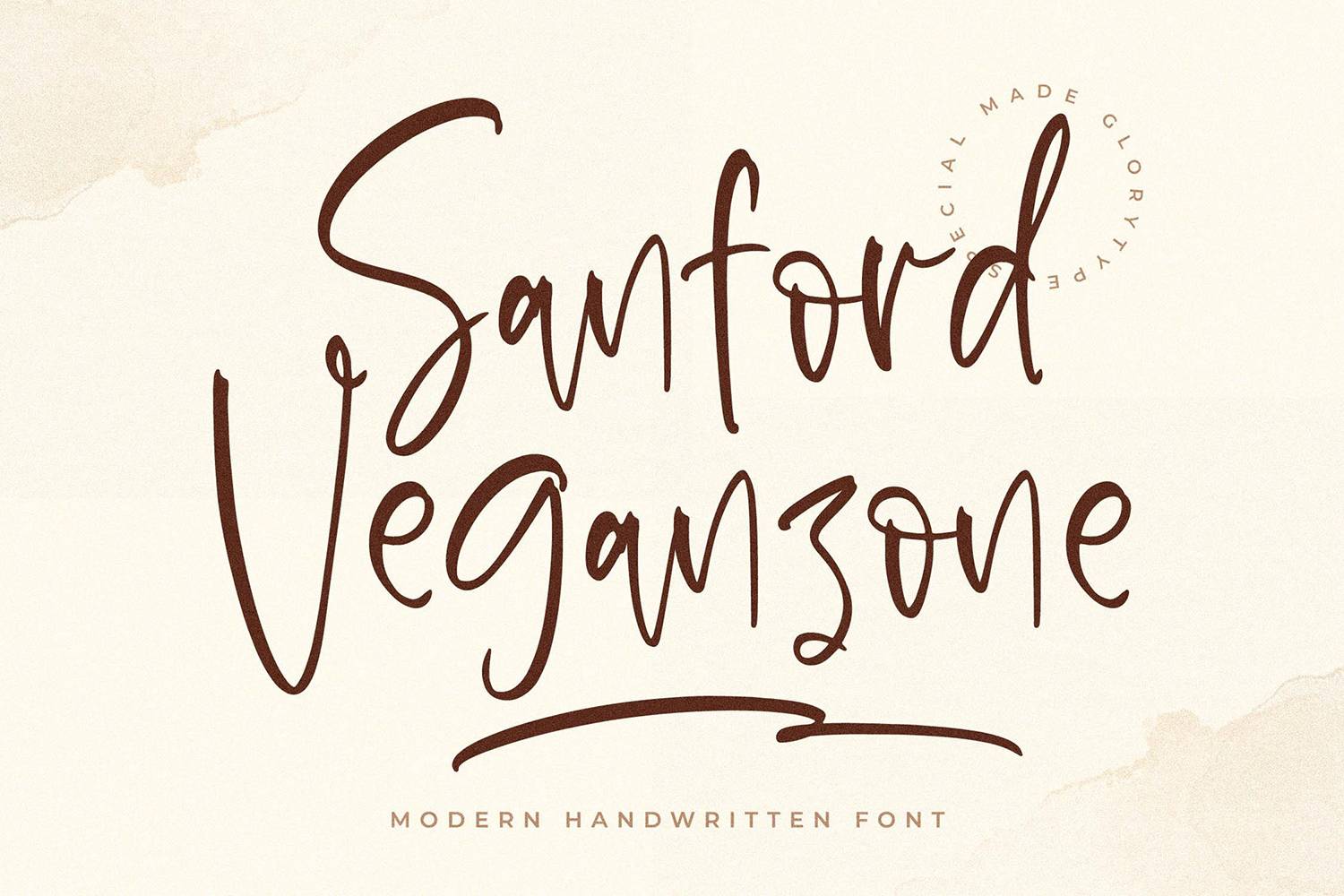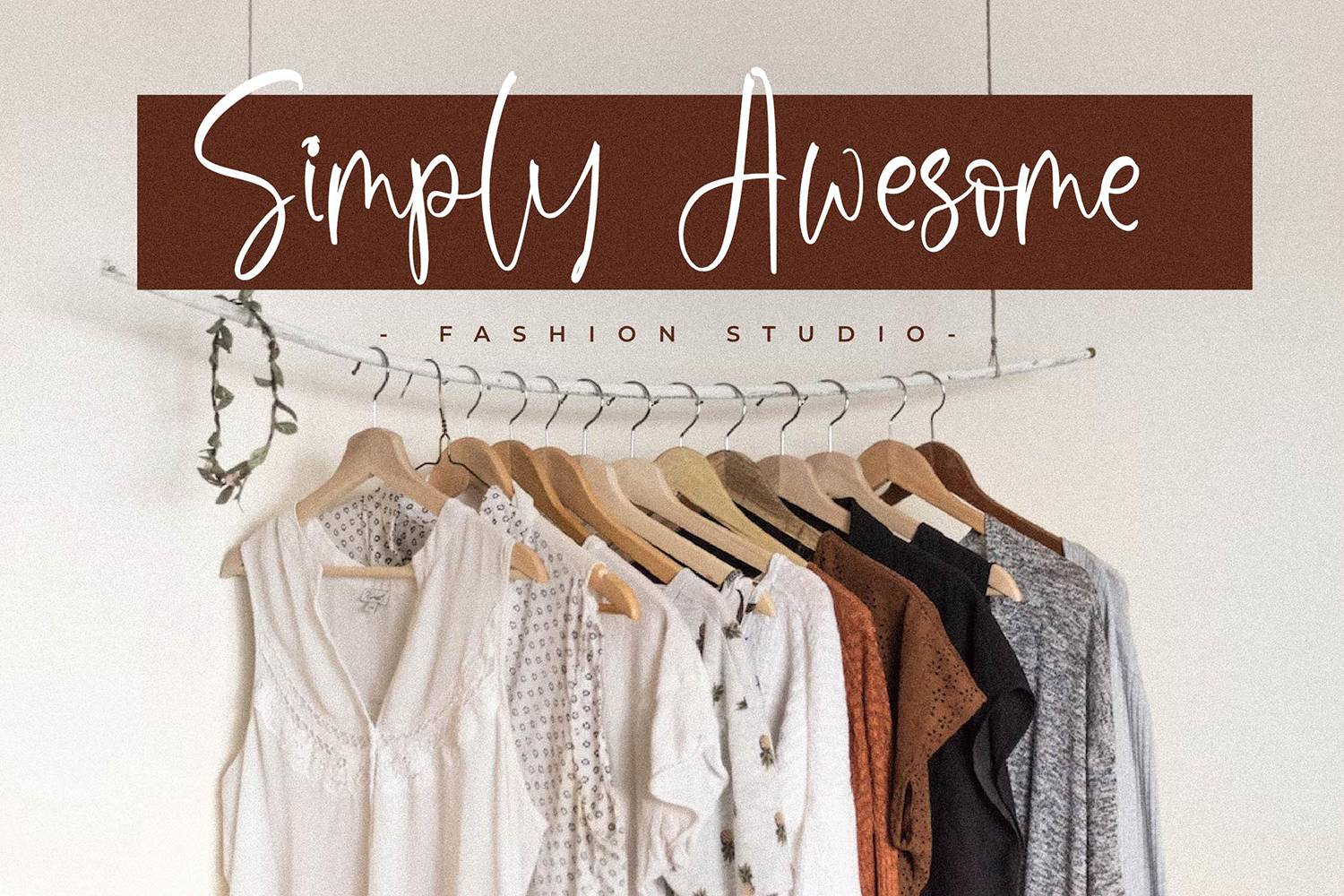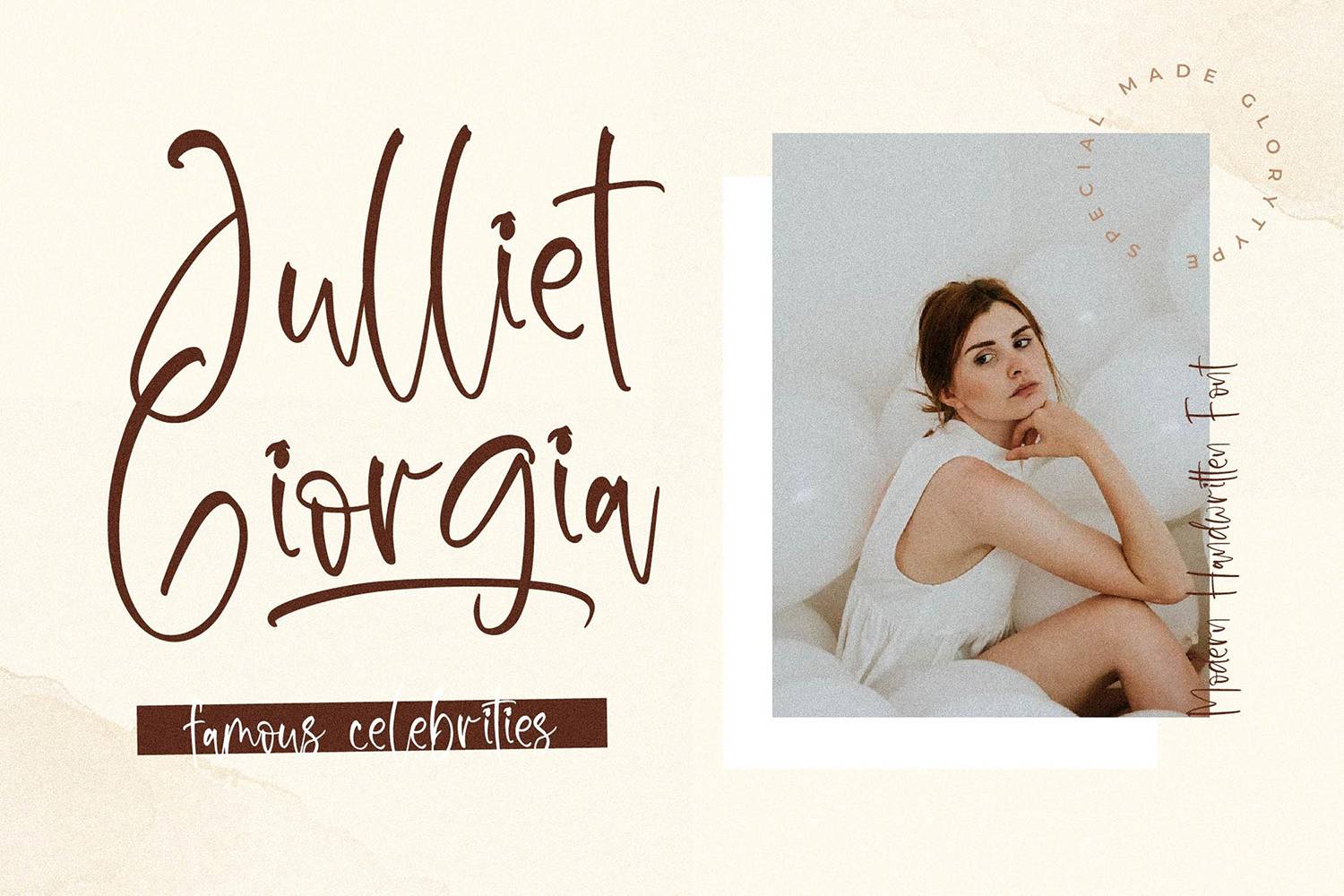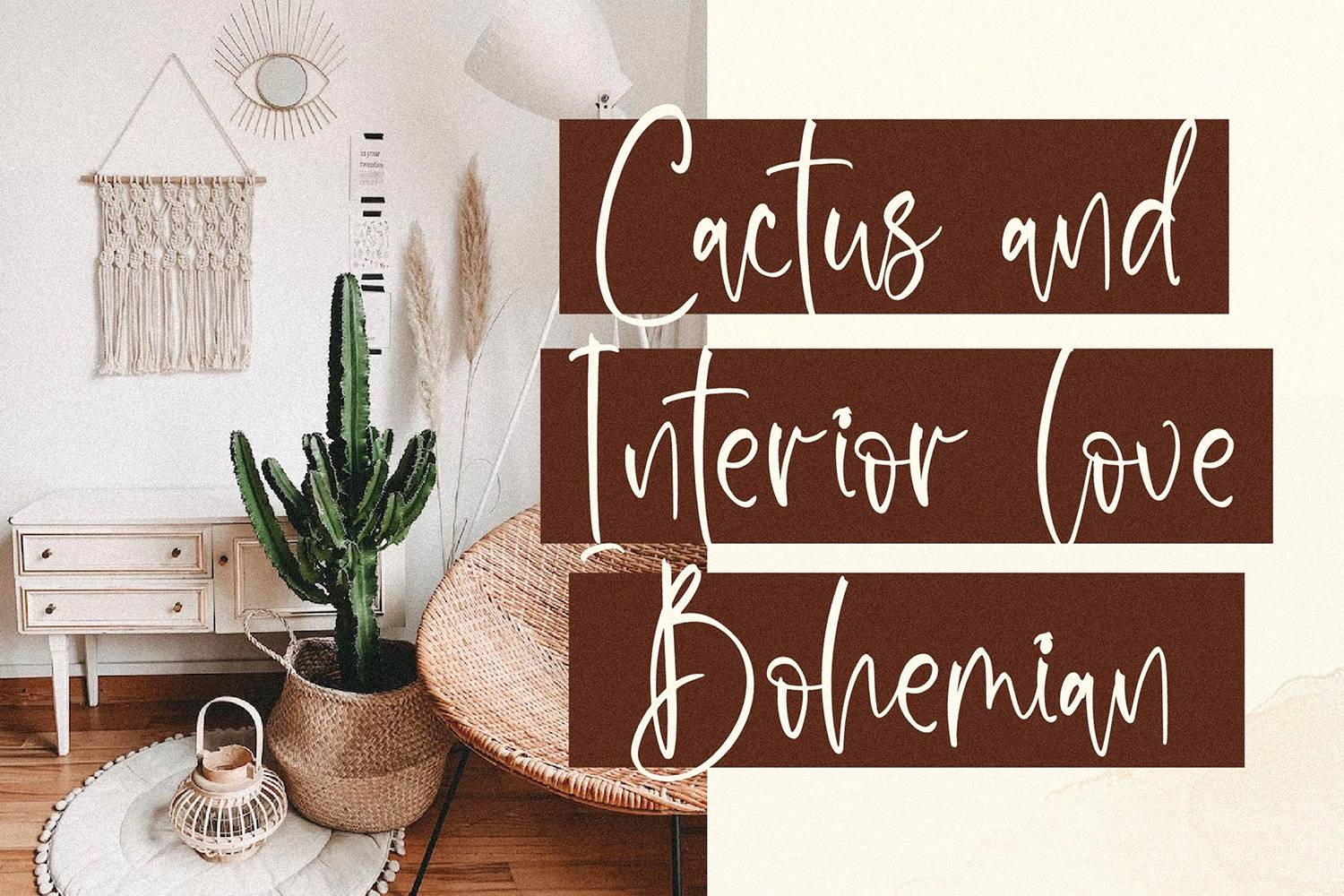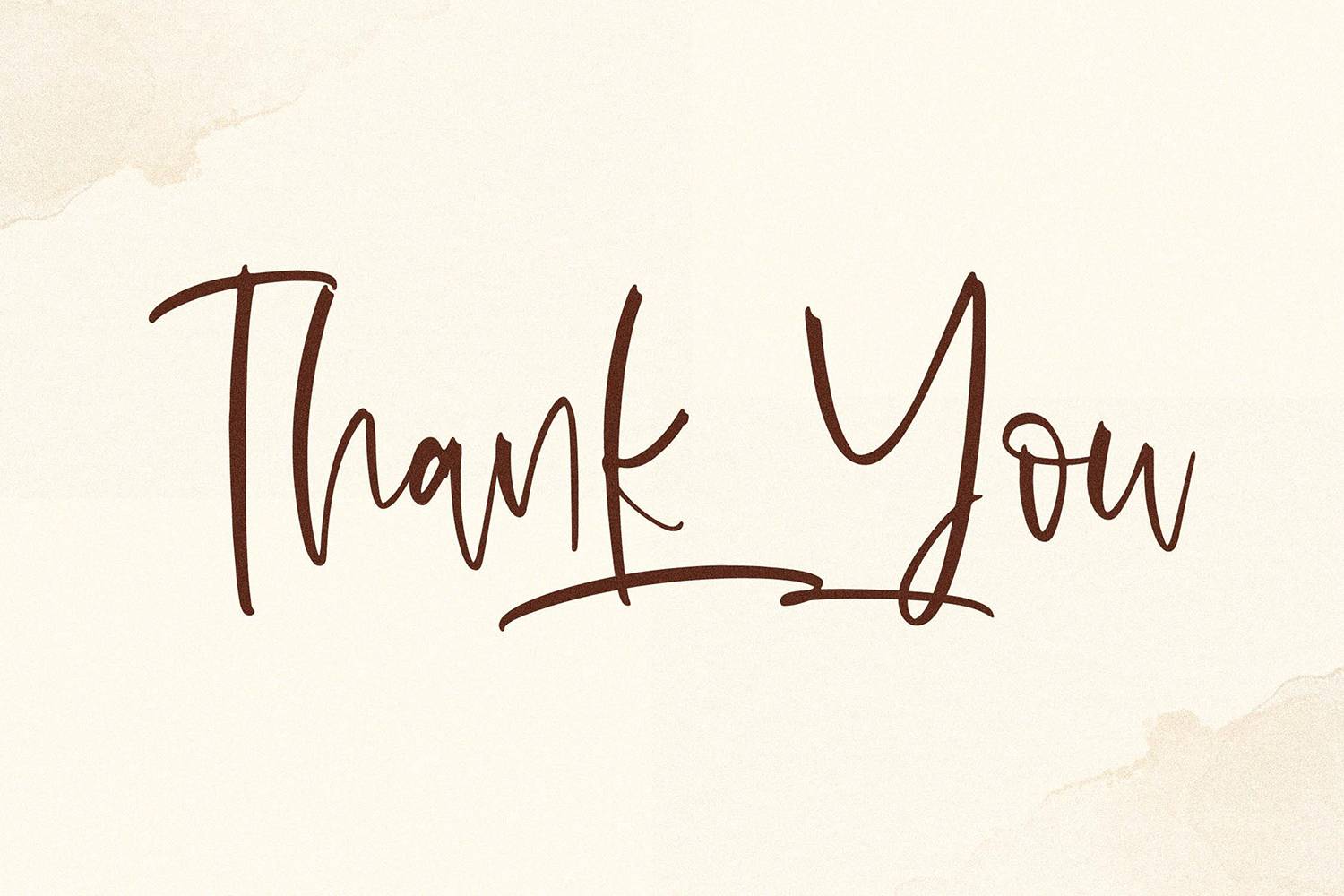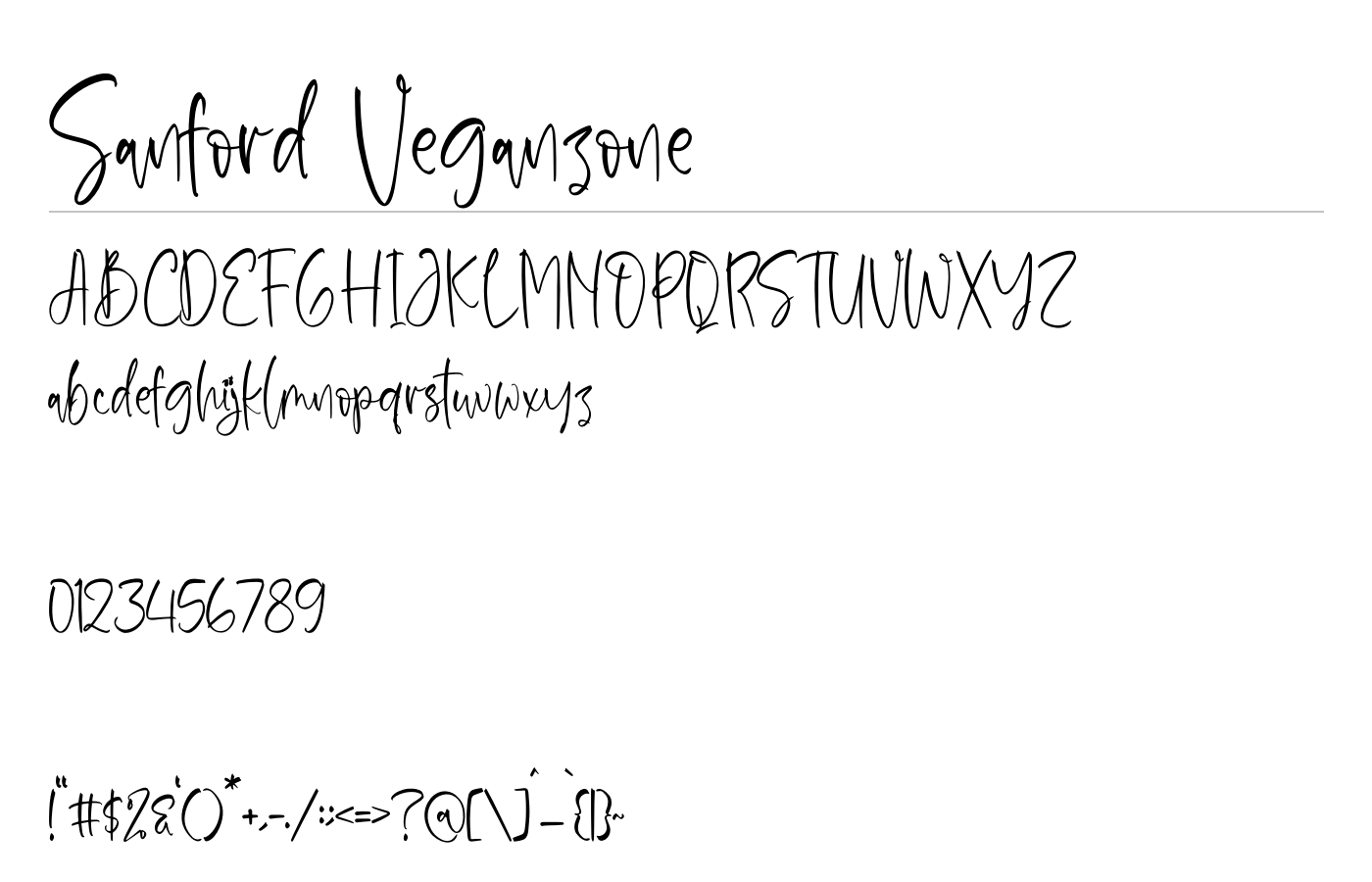
Sanford Veganzone is a slender, playful handwritten font with a casual and organic feel, characterized by its tall, narrow letterforms and lively, uneven strokes. Its delicate lines and quirky letter shapes make it perfect for adding a personal, informal touch to creative projects like logos, invitations, and social media graphics. This font works well where a friendly, approachable style is desired, especially in lifestyle and artisan branding.
Sanford Veganzone Font
About Sanford Veganzone Font